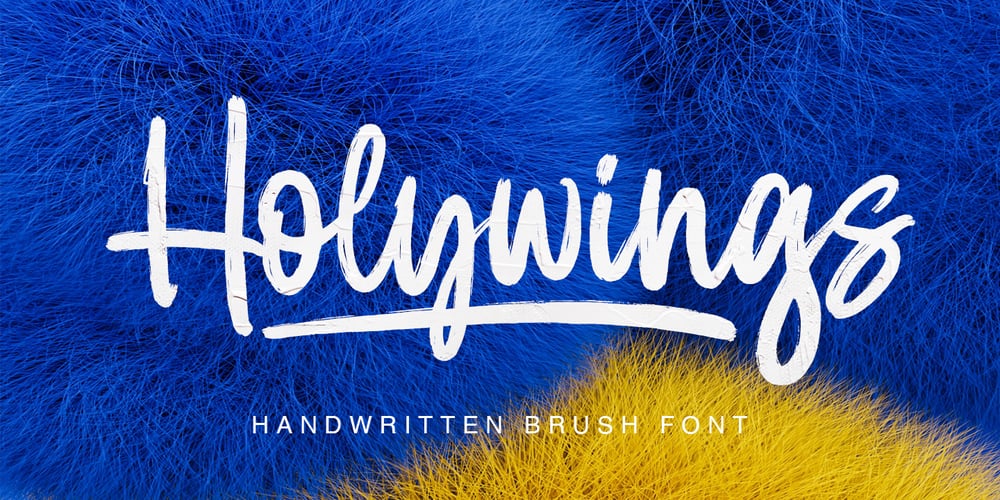
Holywings
Holywings Font Family was designed by Fajar Gunawan and published by Fargun Studio. Holywings contains 2 styles and family package options. Introducing Holywings Font!!Handwritten font with quick dry strokes and a signature style. perfect for branding projects, home ware designs, product packaging or simply as a stylish text overlay to any background image or posters.